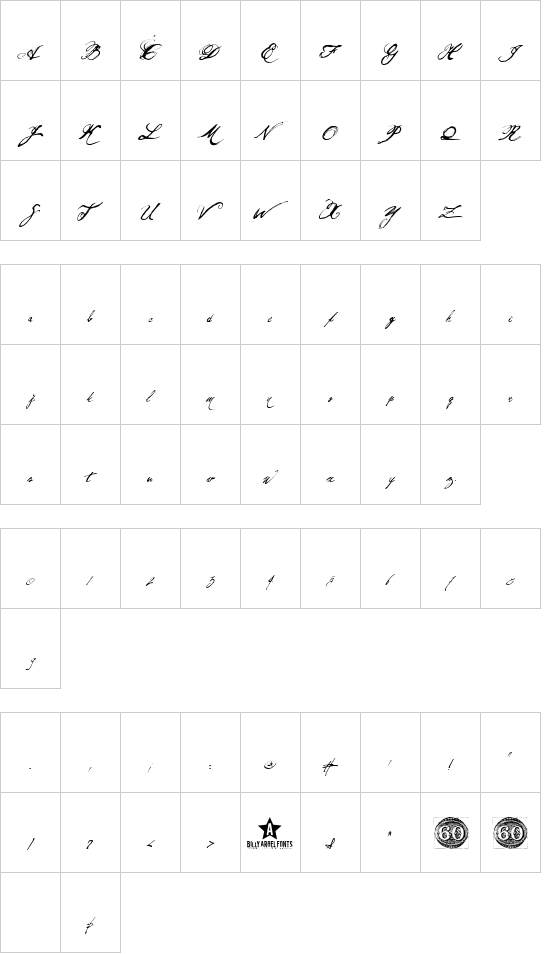
Olho de Boi is a grungy brush calligraphy script with sweeping, curly strokes and a raw painted texture. The strokes swing wide and loop with energy, while the rough brush edges keep it loose and hand-made rather than polished.
That energy suits surf and skate branding, expressive posters, album art, and artistic headlines. Olho de Boi is free to download as a TrueType file, and you can preview it with your own text to see how the painted strokes flow through your wording.